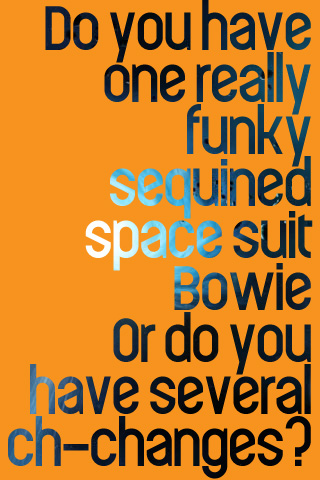
Geomyk
work in progress
Sans Serif
superb. love to see more of this one. 10 so far ;-)
Ha ha, I love the image!
And the lowercase!
Really nice. a,e are my favs.
Have you thought of changing the Z,z to be a bit more like the top left corner of the 5, except flipped horizontally, or even a variation of the bottom left of the 2?
I'll try and ch-change the Z's tonight :)
Well done! The sample really shows out the quality of the font